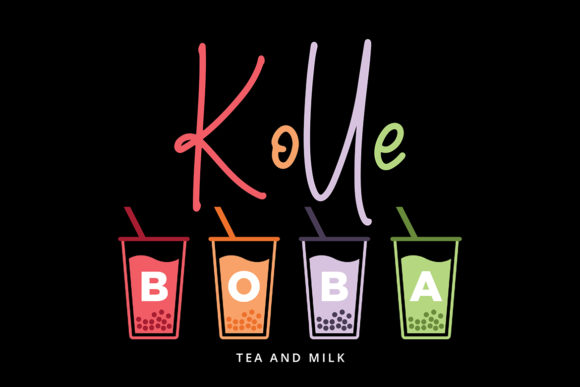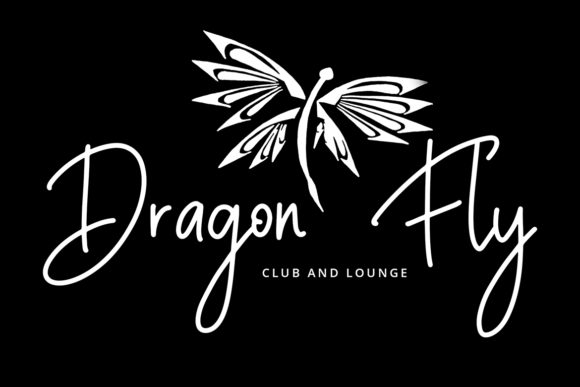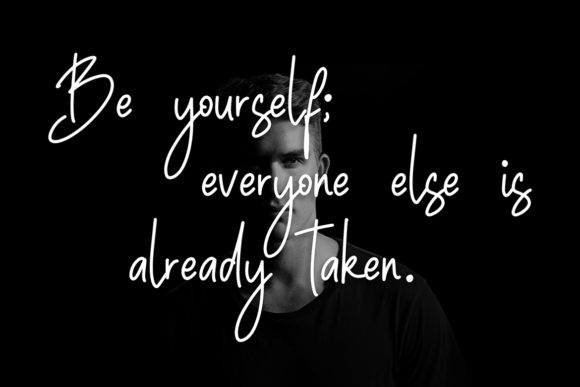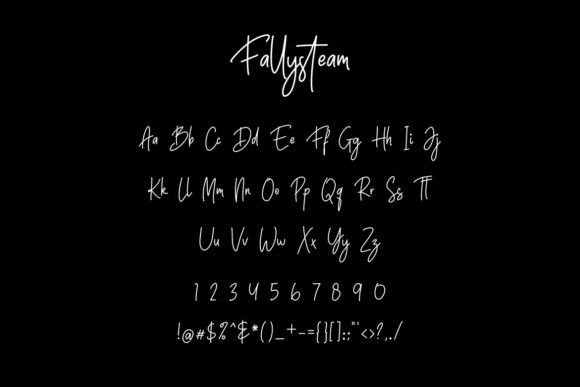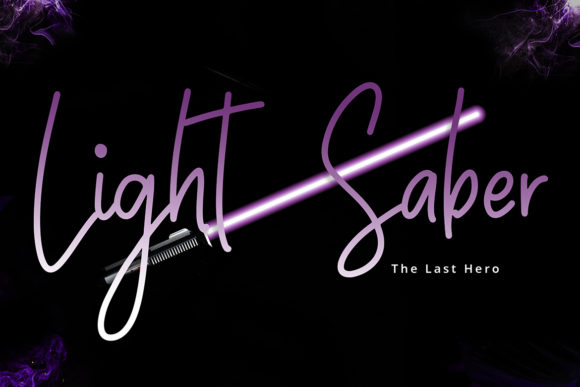
Fallysteam Font
About Fallysteam Font
Fallysteam is signature script font with monoline style. Fall in love with its authentic feel and use it to create gorgeous wedding invitations, beautiful stationary art, eye-catching social media posts, and cute greeting cards.